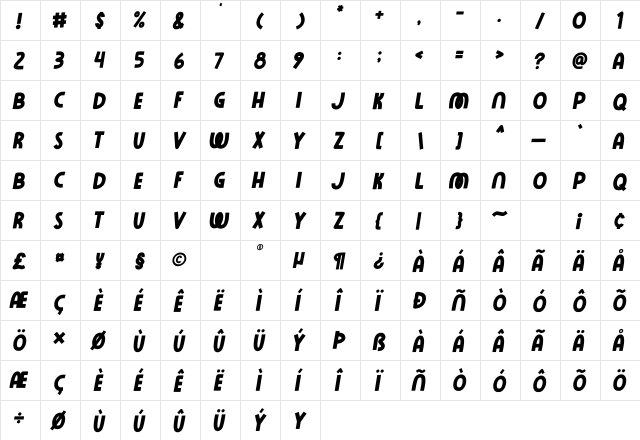
Rose Minie Italic Font Preview
Rose Minie Italic
Rose Minie Italic Font Details
Design Context for Rose Minie Typeface
Rose Minie takes a measured approach to typography — its balanced proportions and neutral character make it a reliable workhorse for both digital and print work. Its italic angle brings a sense of urgency and motion to the letterforms.